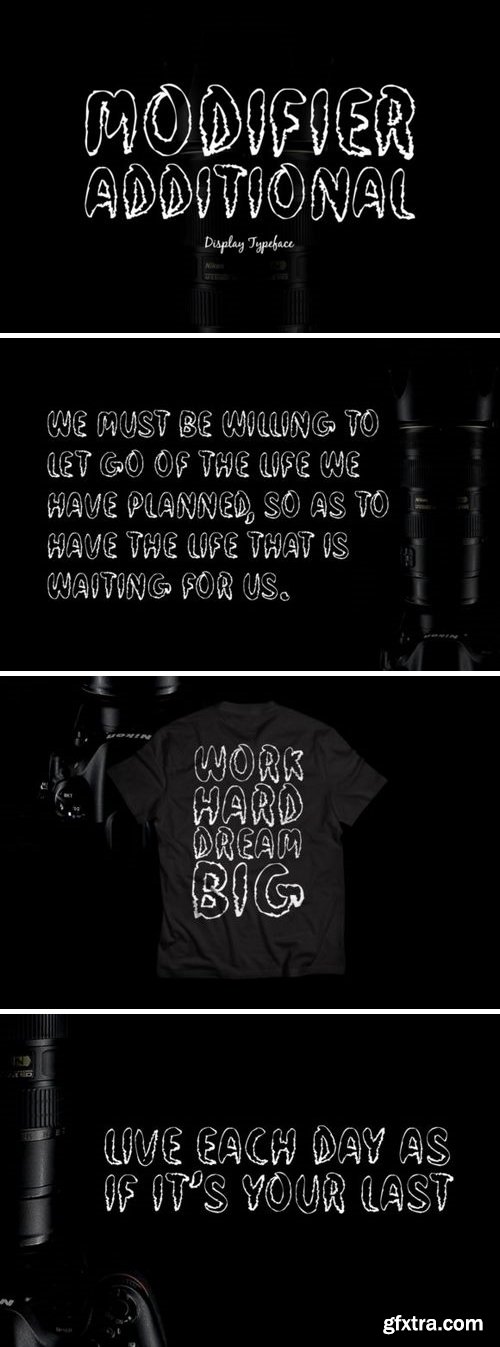
Modifier Additional
The Modifier Additional is an unique brush font. It’s perfectly suited for stationery, logos, t-shirts, papers, print designs, website headers, photo frames, flyers, music covers, posters, image sliders, and much more.